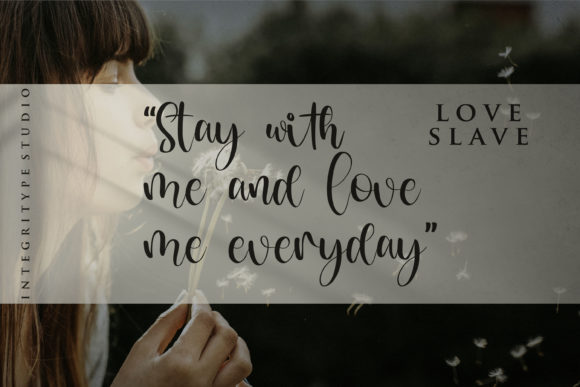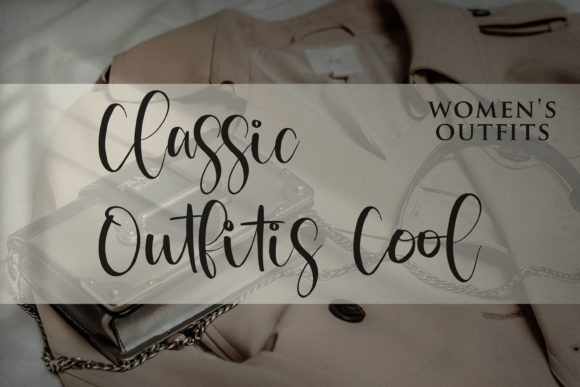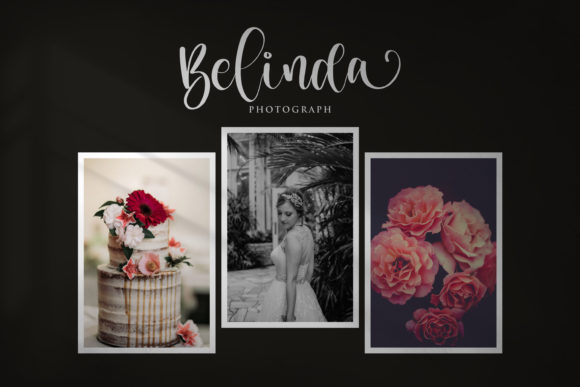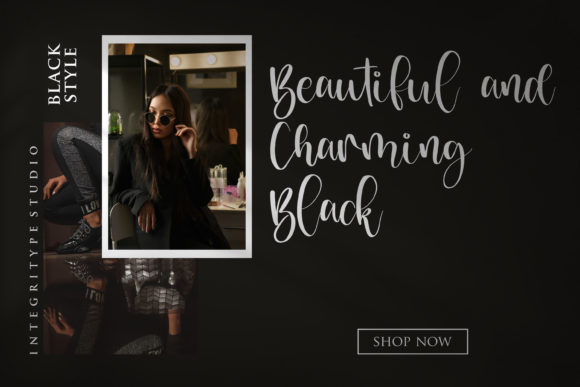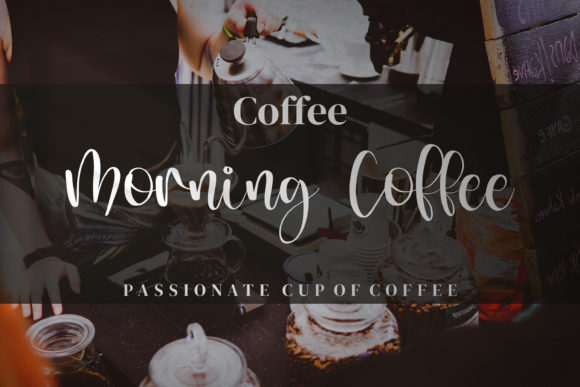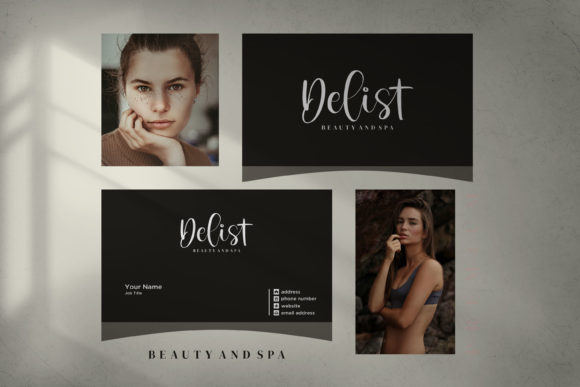
Discover the Elegance of Belinda Asifa Font
Have you ever found yourself stuck in a creative rut, searching for the perfect font to bring your design to life? You know the feeling – scrolling through countless options, none of which quite capture the essence of your vision. That’s where the lovely Belinda Asifa Font comes in.
Created with elegance and sophistication in mind, this delicate script font is designed to add a touch of refinement to any project. Whether you’re a graphic designer, artist, or simply someone looking to elevate their personal brand, Belinda Asifa Font is the perfect addition to your toolkit.
With its unique blend of classic and modern elements, Belinda Asifa Font offers a refreshing alternative to more common font styles. Its value lies in its versatility – use it to create stunning invitations, beautiful wedding stationery, or even a personal blog that exudes class and sophistication.
Belinda Asifa Font Key Features
- Font Family: Belinda Asifa, Belinda Asifa Italic, Belinda Asifa Bold, Belinda Asifa Bold Italic
- Unique Characteristics: The Belinda Asifa font features a unique blend of traditional and modern calligraphy styles, with intricate flourishes and elegant letterforms, making it perfect for formal and luxury branding.
Designer Review: Belinda Asifa Font
Overall, I’d say the Belinda Asifa Font is a beautiful addition to any designer’s toolkit. ✨ It has a unique blend of modern and traditional elements that make it perfect for creating elegant, sophisticated designs. The font is highly customizable, allowing you to tweak the color, size, and style to fit your specific needs.
One of the things that really stands out about the Belinda Asifa Font is its versatility. ✨ It can be used for everything from business cards and resumes to wedding invitations and menus. The font is also highly legible, making it perfect for long blocks of text.
Overall, I’d say the Belinda Asifa Font is a solid choice for designers looking to add some elegance to their designs. While it has some limitations, the benefits far outweigh the drawbacks. With a little bit of tweaking, this font can be used to create truly stunning designs that are sure to impress.
The Belinda Asifa Font is ideal for use in creative and elegant designs, such as:
- Print and digital advertising
Alternatives to Belinda Asifa Font
Playfair Display is a high-end serif font that works well for headings and titles. It’s elegant, luxurious, and suitable for high-end fashion, luxury brands, or any design that requires sophistication. Compared to Belinda Asifa Font, Playfair Display is more ornate and luxurious, making it a better choice for high-end designs.
Lato is a modern sans-serif font that’s perfect for body text and headings. It’s clean, elegant, and highly legible, making it suitable for a wide range of designs, from corporate to creative projects. Compared to Belinda Asifa Font, Lato is more modern and minimalist, making it a better choice for designs that require a clean and simple aesthetic.
Merriweather is a classic serif font that works well for body text and headings. It’s elegant, timeless, and suitable for a wide range of designs, from academic to corporate projects. Compared to Belinda Asifa Font, Merriweather is more traditional and formal, making it a better choice for designs that require a classic and professional aesthetic.